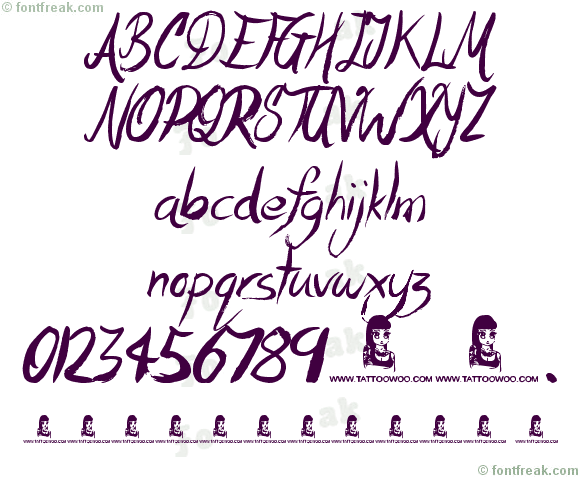
Motives
The Motives font, designed by Jonathan S. Harris, is a striking display typeface that captures attention with its unique aesthetic. As a decorative font, it embodies a free-spirited and artistic flair, making it perfect for creative projects. The visual characteristics of the Motives font feature a medium stroke weight with occasional variations that add a sense of dynamism. Its flowing, cursive-like strokes are complemented by subtle decorative elements, giving it a handcrafted appearance. The spacing is generous, allowing each character to breathe while maintaining an elegant flow that enhances readability.
This versatile font is ideal for a variety of applications. It can elevate wedding invitations with its romantic and personal touch, making special occasions feel even more unique. Additionally, the Motives font works wonderfully for movie posters, where its creative energy can convey the tone and emotion of a film effectively. Restaurant menus also benefit from its artistic flair, providing a stylish presentation that can attract diners’ attention. Content creators will find this font advantageous for blog headings or social media graphics, where standing out is key.
Motives is especially appealing to graphic designers looking to add a touch of personality to their projects, as well as small business owners aiming to create memorable branding. Content creators seeking to engage their audience will also find this font highly effective in capturing attention.
The Motives font stands out for its ability to blend artistry with functionality, making it a superb choice for creatives in various fields. Whether you’re designing something for a special event or looking to enhance your brand's visual identity, the Motives font free download offers an opportunity to introduce a unique and expressive typeface into your work.